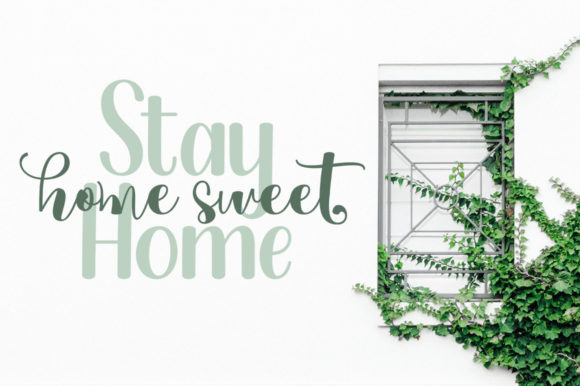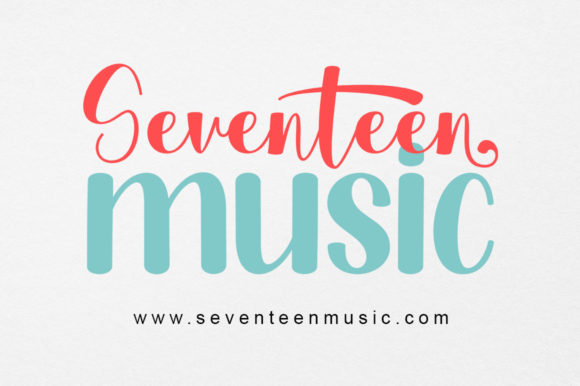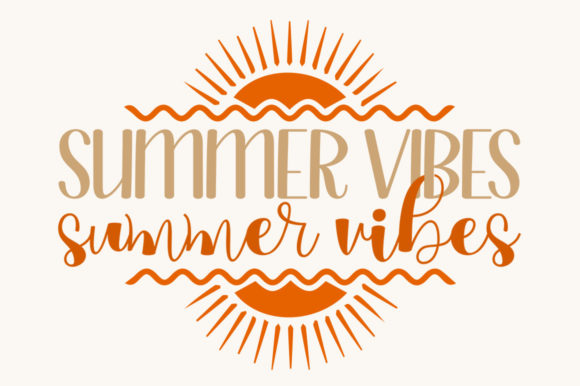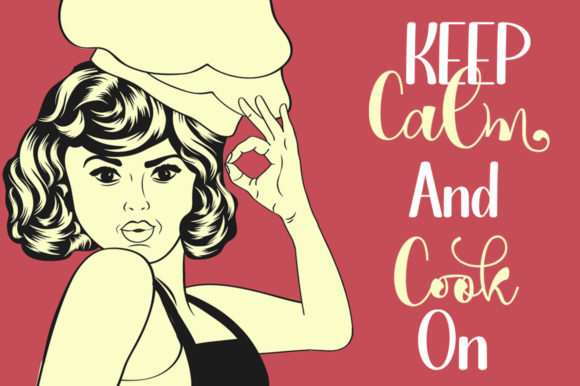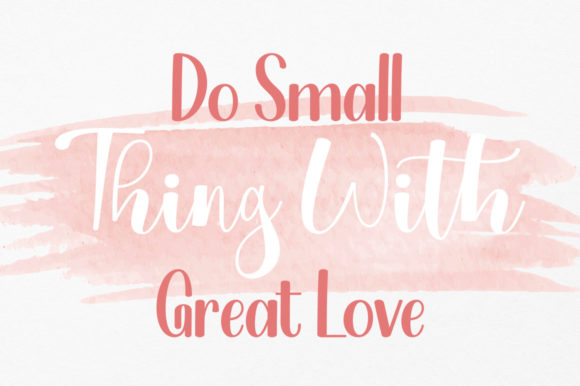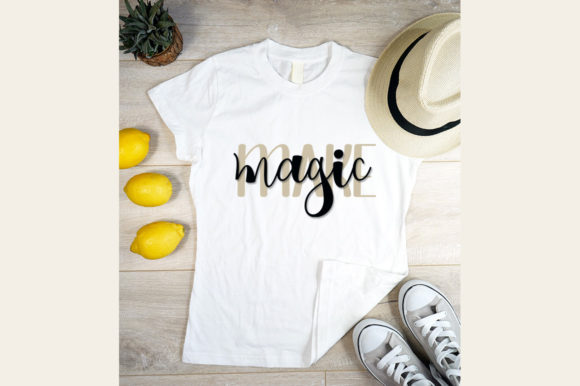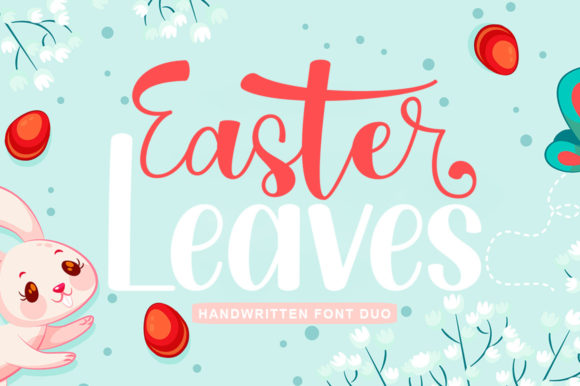
Easter Leaves Font: Elevate Your Designs with Modern Calligraphy
Are you looking for a font that can add a touch of elegance and sophistication to your designs? Look no further than the Easter Leaves Font! This modern calligraphy font is perfect for designers and crafters who want to create extraordinary projects that stand out from the crowd. In this article, we’ll explore the features and benefits of Easter Leaves Font and how it can elevate your designs.
What is Easter Leaves Font?
Easter Leaves Font is a modern calligraphy font that boasts a natural and elegant look. It’s a font duo that comes with many alternative styles, making it versatile and perfect for a wide range of design projects. Whether you’re creating invitations, product packaging, quotes, product design, or labels, Easter Leaves Font is the perfect choice.
Key Features of Easter Leaves Font
- Modern Calligraphy: Easter Leaves Font is a modern calligraphy font that features elegant and flowing lines, perfect for creating sophisticated designs.
- Many Alternative Styles: This font duo comes with many alternative styles, allowing you to experiment with different looks and find the one that suits your project best.
- PUA Encoded: Easter Leaves Font is PUA encoded, which means you can access all the amazing glyphs and ligatures with ease. This makes it easy to create unique and creative designs.
- Suitable for Various Products: Easter Leaves Font is suitable for a wide range of products, including invitations, product packaging, quotes, product design, crafter, labels, photography, watermarks, logos, and branding.
Perfect for Special Occasions
Easter Leaves Font is perfect for special occasions such as Valentine’s Day, Mother’s Day, weddings, spring, and Christmas. The font’s elegant and sophisticated look makes it ideal for creating designs that are both beautiful and memorable.
Easter Leaves Font offers numerous benefits for designers and crafters, including:
- Elegant and Sophisticated Designs: With Easter Leaves Font, you can create elegant and sophisticated designs that are sure to impress.
- Time-Saving: The font’s PUA encoding and many alternative styles make it easy to create unique designs quickly and efficiently.
- Versatility: Easter Leaves Font is suitable for a wide range of design projects, making it a great addition to any design library.
- Easy to Use: The font is easy to use, even for those who are new to design. The PUA encoding makes it easy to access all the glyphs and ligatures.
Tips for Using Easter Leaves Font
Here are some tips for using Easter Leaves Font:
- Experiment with Different Styles: Don’t be afraid to experiment with different styles and find the one that works best for your project.
- Use it for Headings and Titles: Easter Leaves Font is perfect for headings and titles, adding a touch of elegance and sophistication to your designs.
- Pair it with Other Fonts: You can pair Easter Leaves Font with other fonts to create a unique and creative look.
Easter Leaves Font is a modern calligraphy font that is perfect for designers and crafters who want to create elegant and sophisticated designs. With its many alternative styles, PUA encoding, and versatility, it’s an excellent addition to any design library. Whether you’re creating designs for special occasions or everyday projects, Easter Leaves Font is sure to elevate your designs and make them stand out from the crowd.